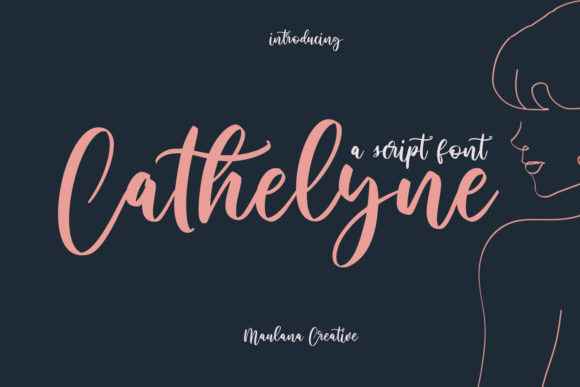
The Cathelyne Script Font: A Designer’s New Best Friend
I still remember the frustration of working on a project, hours pouring into the design, and then realizing that the font just wasn’t doing it for me. The client wanted something elegant yet casual, and I was stuck in a font limbo. That’s when I discovered the Cathelyne Script font, and it was love at first sight! With its slant high contrast strokes, fun characters, ligatures, and alternates, I knew I had found the perfect fit. In this article, I’ll share my experience with the Cathelyne Script font, and how you can make the most of it in your projects.
- ✨ The casual, yet elegant vibe it brings to any project
- ✅ High contrast strokes that add a touch of sophistication
- 🎉 Fun characters and ligatures that make the text come alive
- 🔍 Alternates that offer flexibility and creativity
While the Cathelyne Script font is amazing, there are a few things to keep in mind:
- ⚠️ Some characters might be a bit too ornate for very formal projects
- 🤔 Limited use of uppercase letters, which might require creative workarounds
A Practical Guide: Using Cathelyne Script in Your Projects
- Experiment with OpenType features like ligatures and stylistic alternates to add some flair
- Use the font’s built-in features, like ligatures, to add some personality
The Designer Inspiration Behind Cathelyne Script
The Cathelyne Script font was inspired by the classic script fonts of the past, with a modern twist. The designer aimed to create a font that was both elegant and approachable, perfect for creative projects that require a personal touch. With its unique blend of high contrast strokes and fun characters, Cathelyne Script is sure to bring a touch of personality to any project.
Q: What is the Cathelyne Script font best used for?
A: The Cathelyne Script font is perfect for creative projects that require a personal touch, such as branding, packaging, and advertising.
Q: Is the Cathelyne Script font suitable for body text?
A: While the Cathelyne Script font is beautiful, it’s best used for headings and titles. For body text, a clearer font might be more suitable.